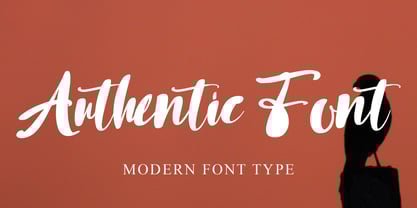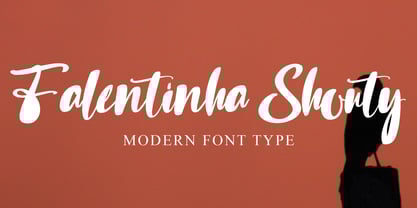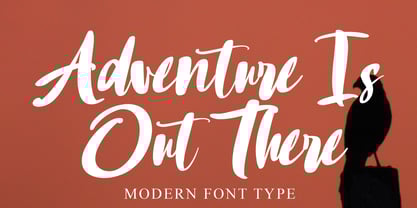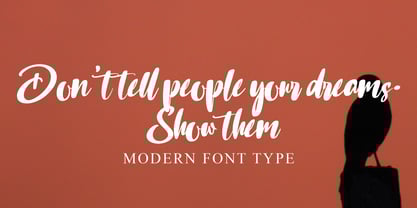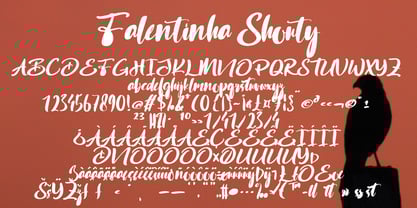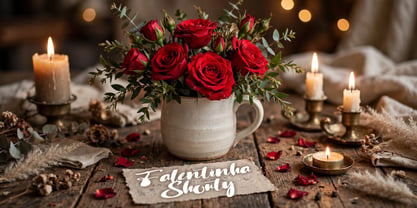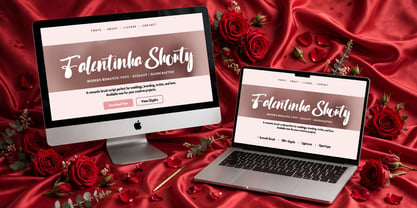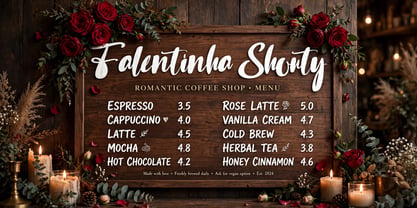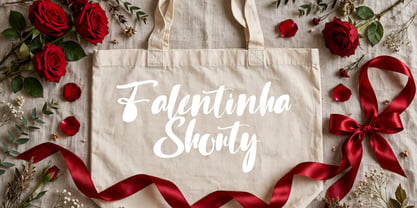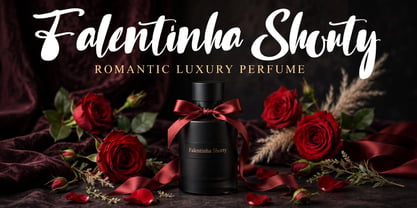
Falentinha Shouty
The Falentinha Shouty Font Family was designed by Dhoni Trihatmoko and published by Ayska. Falentinha Shouty contains 1 styles.
Dive headfirst into the captivating universe of Falentinha Shouty, a typeface that brilliantly mingles contemporary sophistication with the heartfelt sincerity of handwritten words. This exquisitely designed font echoes a sense of suave refinement and class, casting an alluring charm over your digital works. With Falentinha Shouty, beguile your blog followers, lend your digital diary a unique flair, saturate your invites with color, and voice your raw emotions through customized cards. This versatile font bridges the gap between the sentimental charm for scrapbooks and a chic, modern twist for interior design, upgrading any digital resource with its aesthetic appeal. Rooted in genuineness, Falentinha Shouty fuels your inventiveness, leaving a lasting impact. Unfold the creative prowess of Falentinha Shouty, tap into its subtle power, and behold as your artistic visions morph into tangible masterpieces.